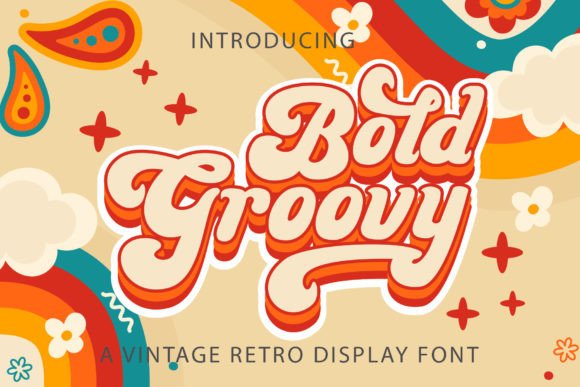
The Retro Revival: How Bold Groovy Font Can Elevate Your Designs
I still remember the time I was working on a vintage-themed wedding invitation project, and I just couldn’t find the perfect font to capture that nostalgic feel. My client was adamant about achieving a retro look, but I was struggling to find a font that would do justice to their vision. That’s when I stumbled upon the Bold Groovy font, and it instantly became my go-to choice. In this article, I’ll share my experience with this amazing font, its features, and how you can use it to add a special retro touch to your designs.
What is Bold Groovy Font?
Bold Groovy is a cool, vintage-style handwritten font that’s perfect for adding a touch of nostalgia to any design. Its unique, cursive style makes it ideal for logos, branding, invitations, stationery, wedding designs, social media posts, and much more! The best part? It’s PUA encoded, which means you can access all glyphs and swashes easily.
I’ve had the pleasure of working with Bold Groovy font on several projects, and here’s what I love about it:
- ✨ Unique and stylish design that’s sure to grab attention
- ✅ Highly versatile and can be used for a wide range of design projects
- ✅ Easy to read and understand, even in smaller sizes
However, I do have to mention a few minor quirks:
- ⚠️ Some users might find the font a bit too bold for certain design projects
- 🤔 Limited availability of language support, which might be a concern for some users
The Story Behind Bold Groovy Font
Bold Groovy font was created by a talented designer who’s passionate about creating unique, vintage-inspired fonts. The designer’s inspiration came from the classic designs of the 1960s and 1970s, and they wanted to create a font that would capture the essence of that era. With Bold Groovy font, you can add a touch of nostalgia to your designs and create something truly special.
| What is the Bold Groovy font best used for? | The Bold Groovy font is best used for designs that require a vintage or retro touch, such as wedding invitations, logos, branding, and social media posts. |
| Is the Bold Groovy font PUA encoded? | Yes, the Bold Groovy font is PUA encoded, which means you can access all glyphs and swashes easily. |
| Is the Bold Groovy font available in different languages? | The Bold Groovy font has limited language support, but it’s best to check with the designer or font provider for more information. |